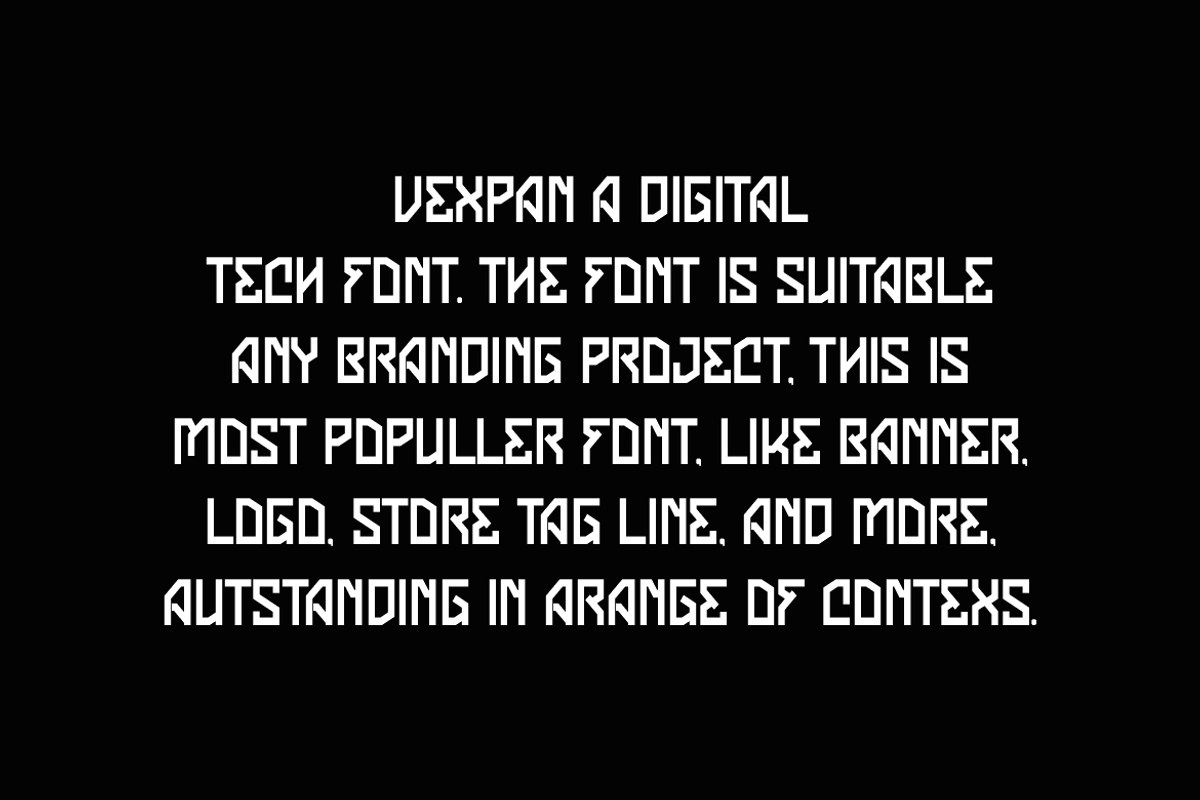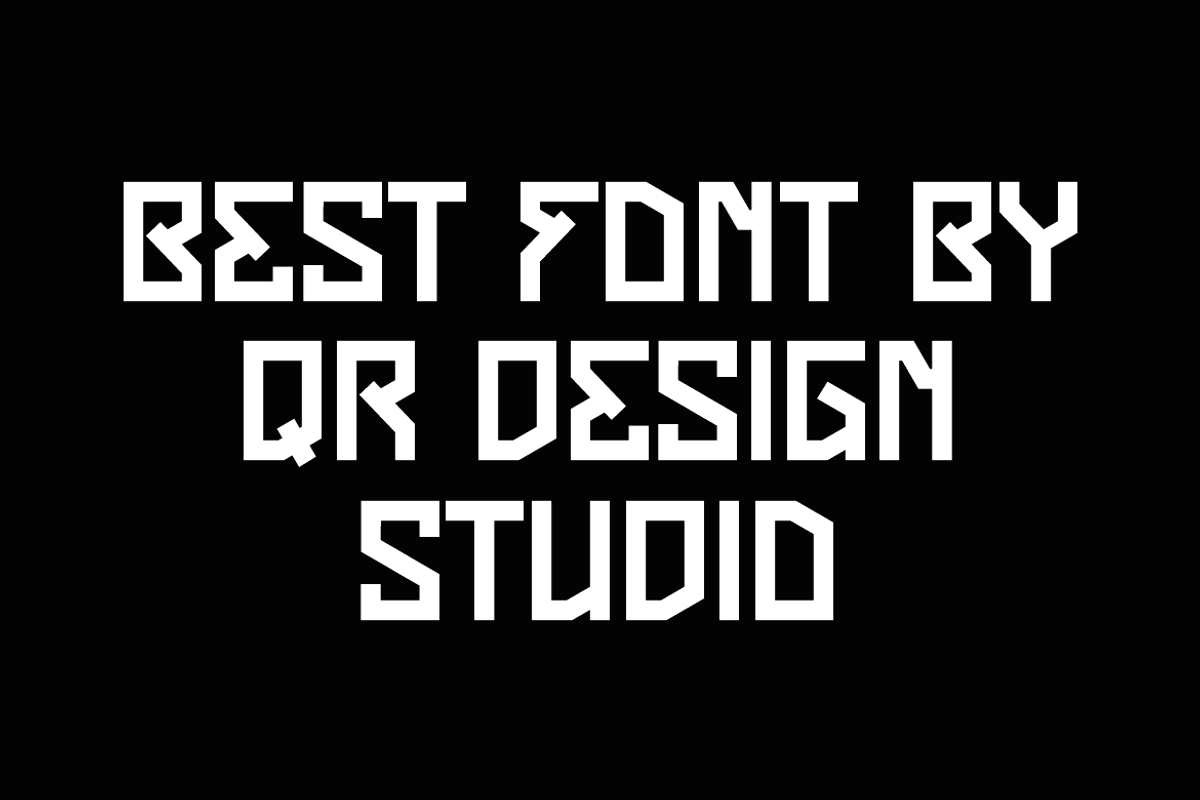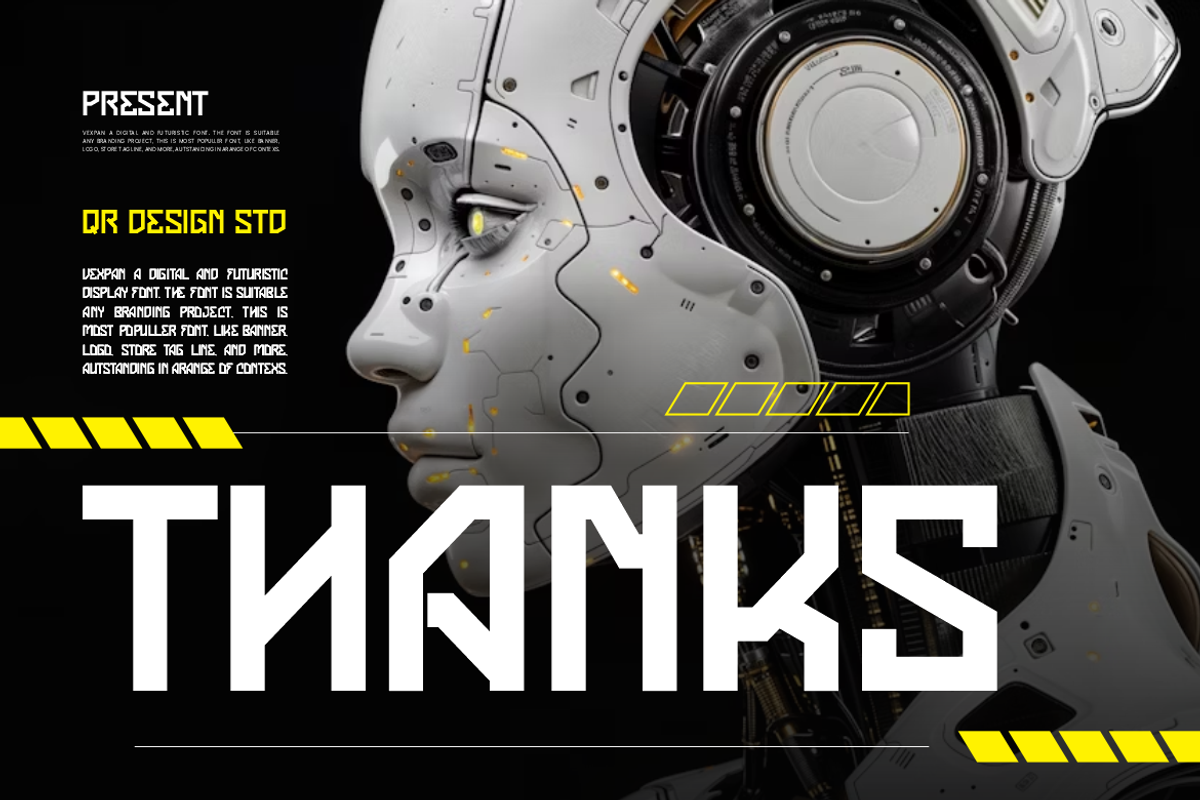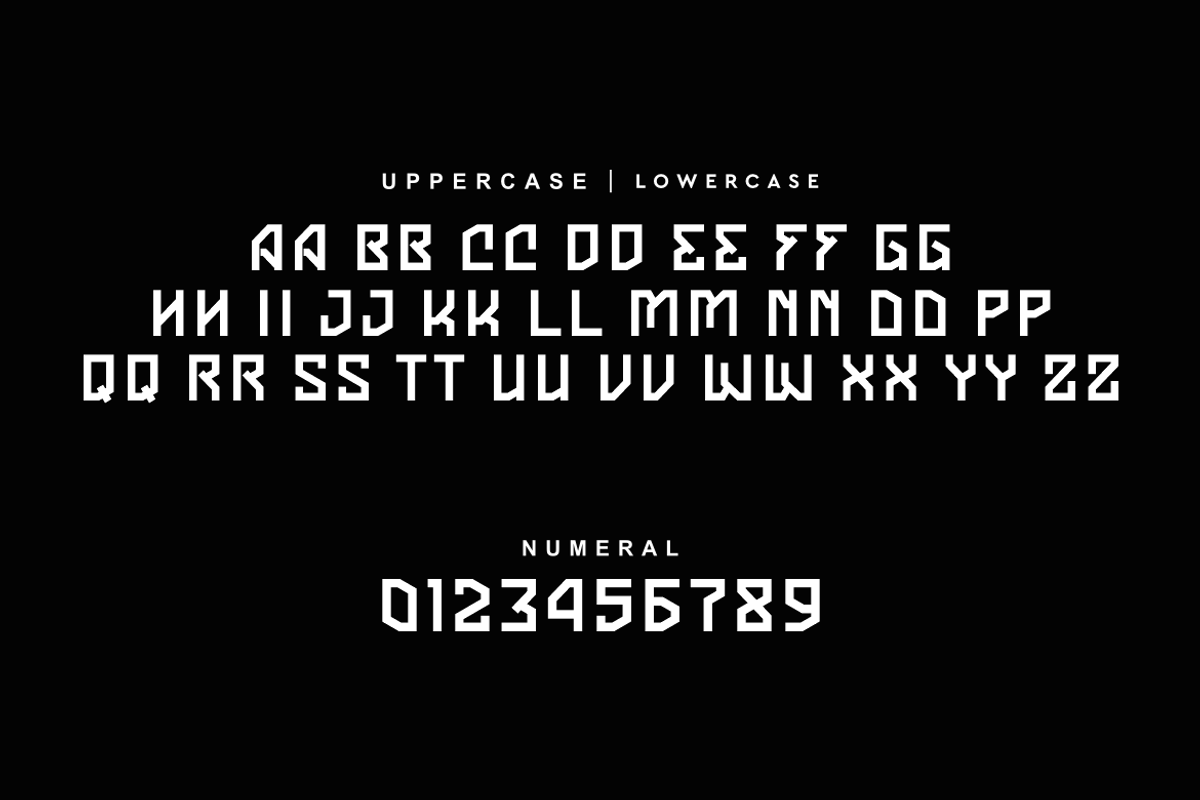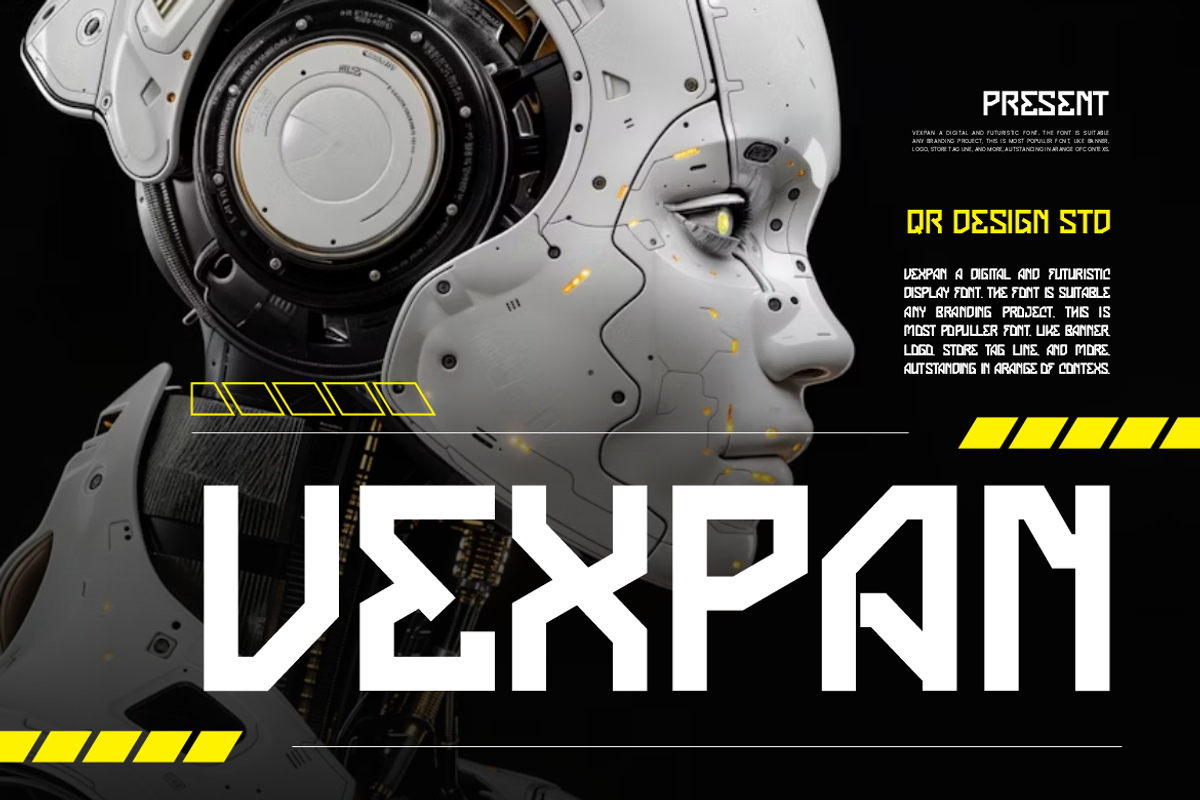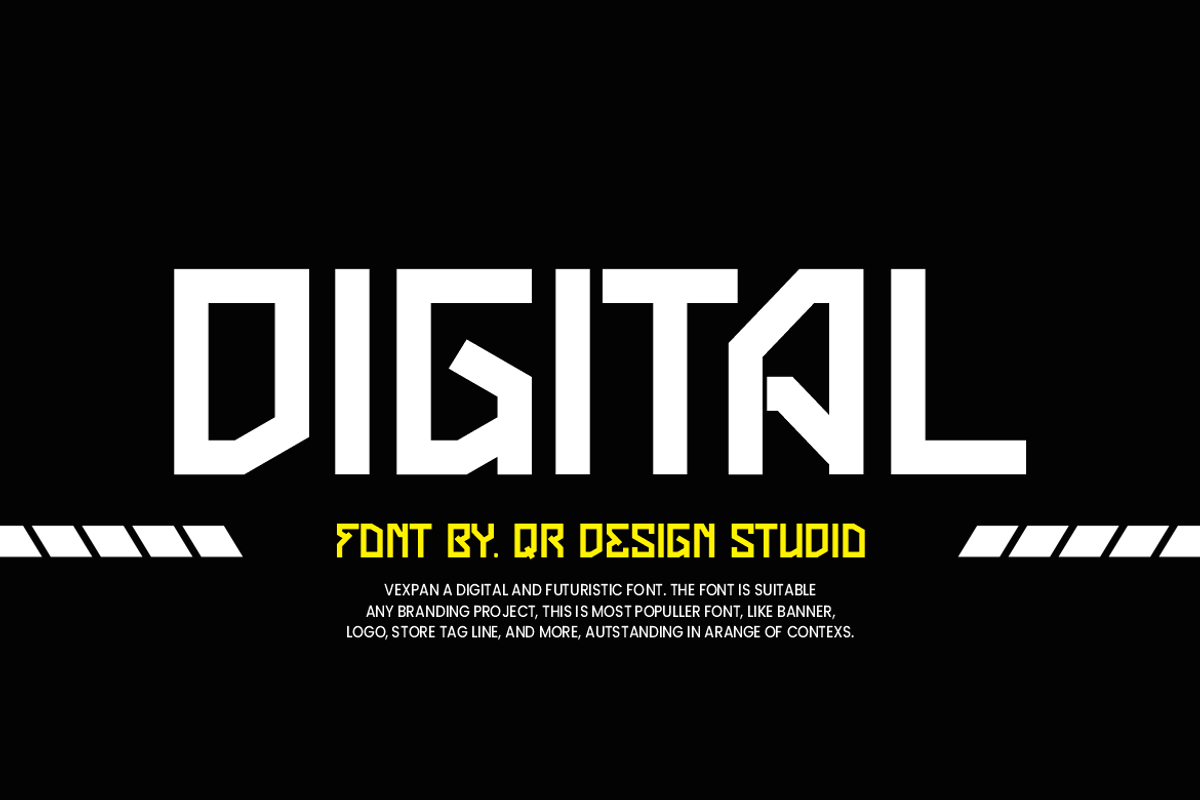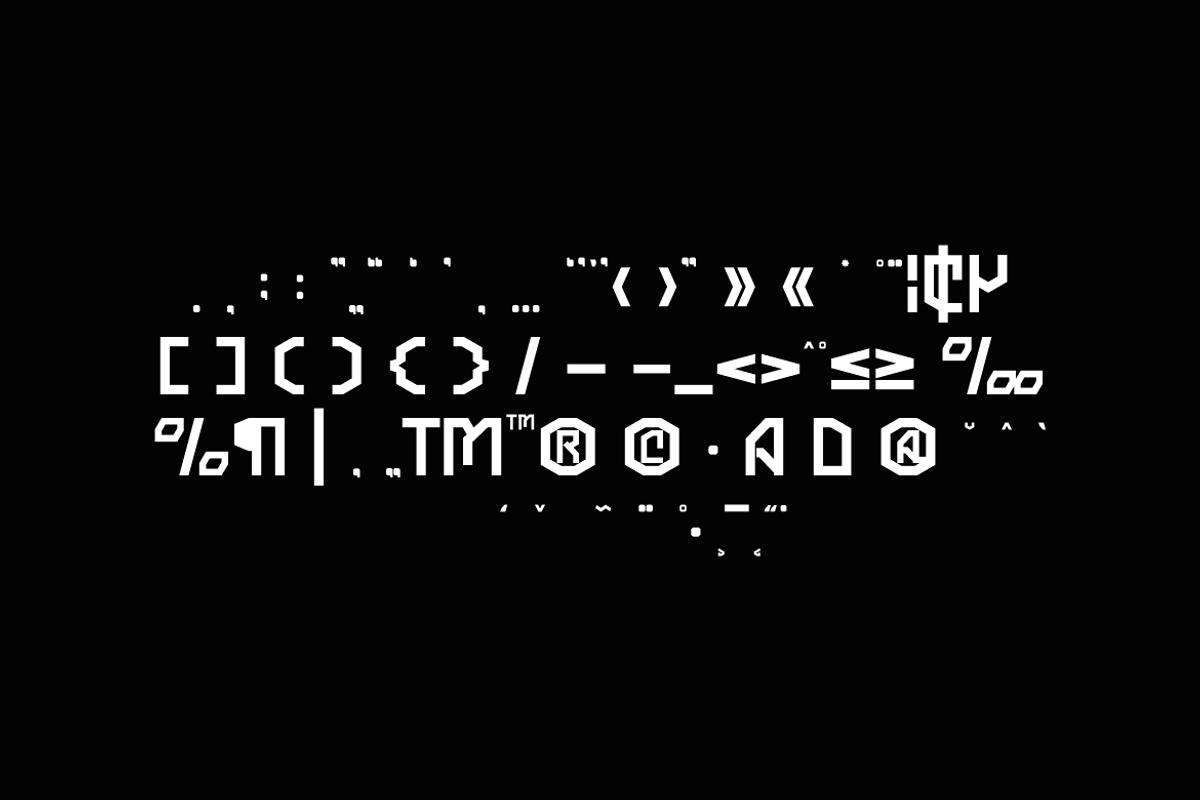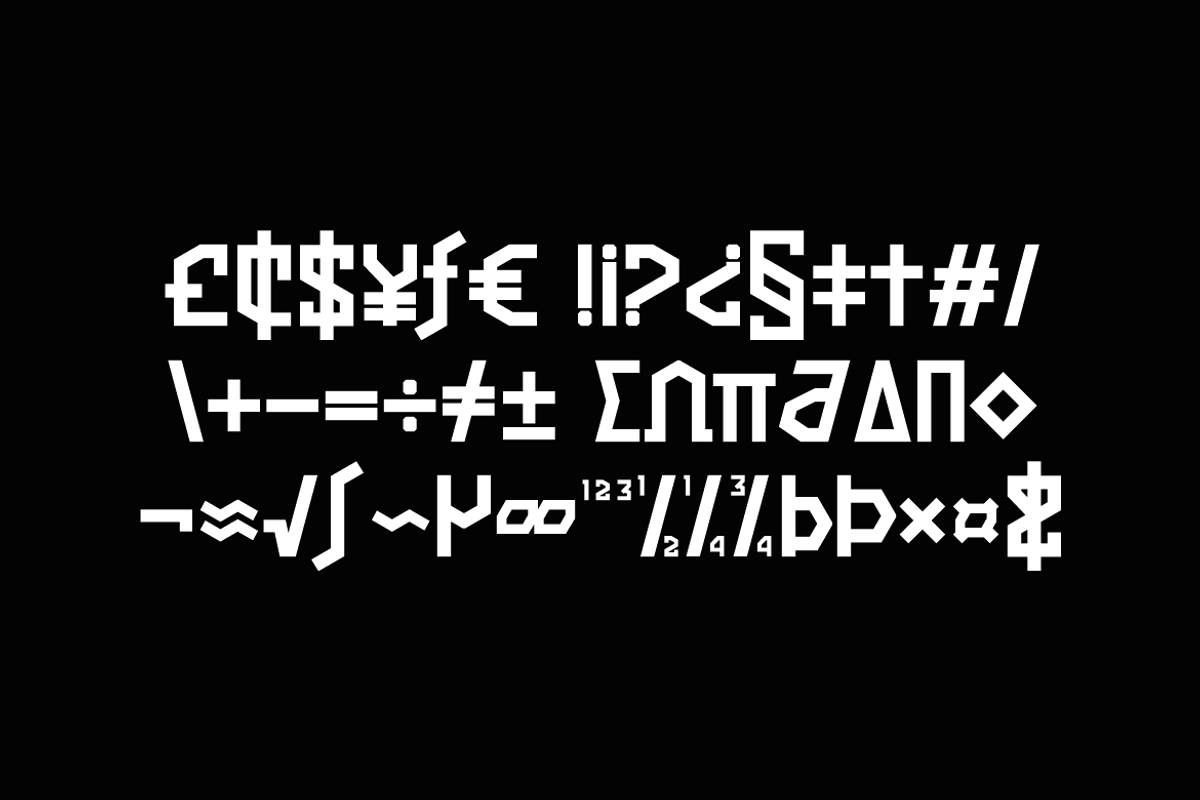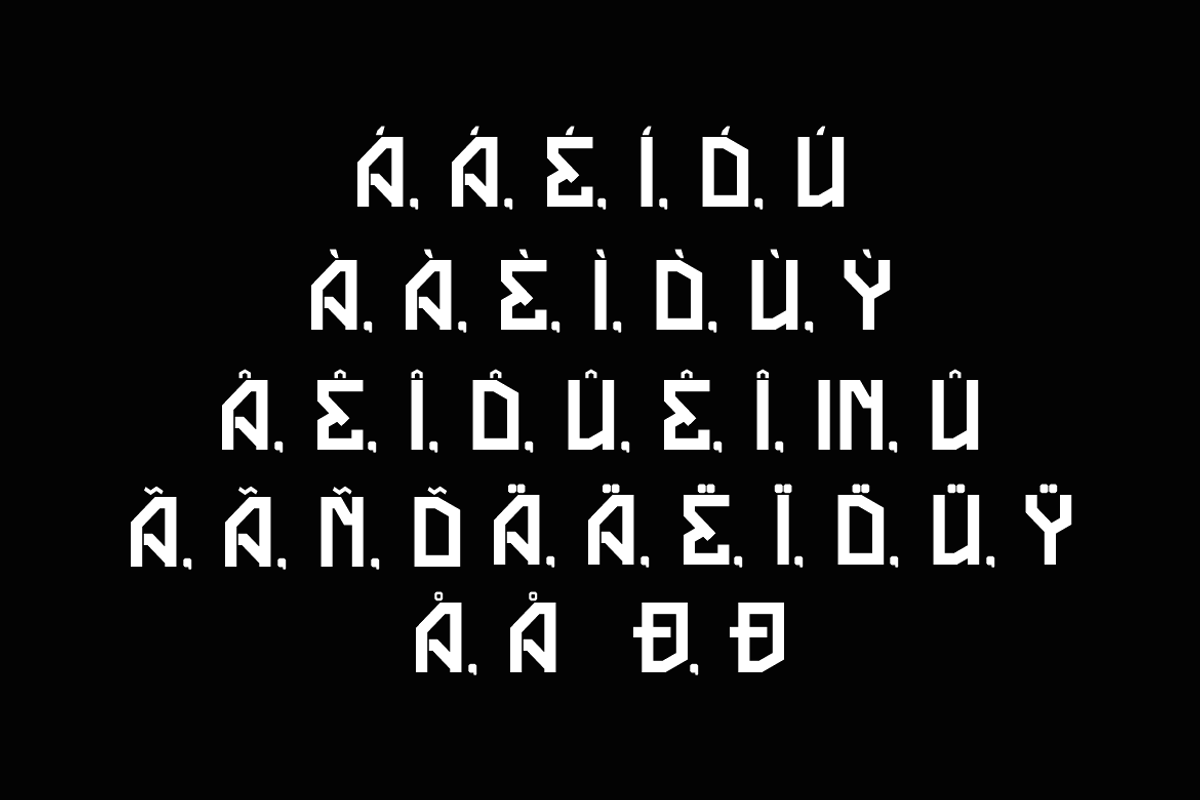
Vexpan - Digital Futuristic Font
Vexpan Font is a digital and authentic display font. The font is suitable for any branding project like poster, logo, techno, and many more. Outstanding in a wide range of contexts.